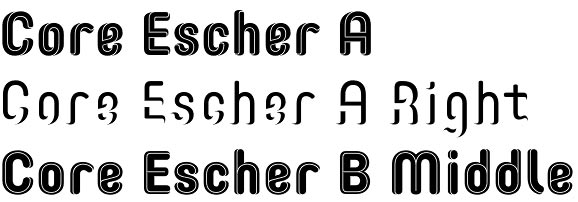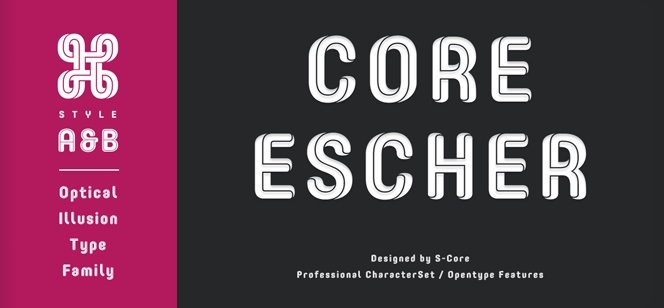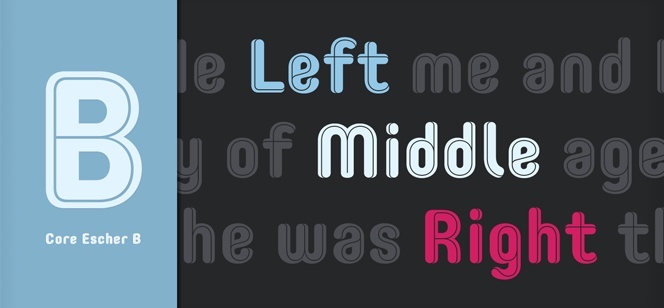
Core Escher font
Core Escher font by Hyun-Seung Lee and Dae-Hoon Hahm (S-Core type foundry) is an artistic type family inspired by the Dutch artist M. C. Escher’s impossible optical constructions. The resulting typeface features spectacular, pleasantly rounded 3D letterforms that seem to pop up out of the page. Due to its artistic nature Core Escher font family gives its best at large point sizes – for headlines, book titles, posters, logotypes, etc.
Core Escher font family comes in two styles: A and B. Core Escher A font is split in two variations: Core Escher A Left and Core Escher A Right whose clean and simple strokes construct together twisted optical impossible letters.
Core Escher B style presents a different form of an optical illusion: the lettering looks 3D by placing thin outlines onto bold letters. Its three variations: B Left, B Middle, and B Right offer a different “perspective” to the text.
Core Escher font family offers a variety of OpenType options such as proportional figures, tabular figures, numerators, denominators, superscript, scientific inferiors, subscript, fractions, ligatures and case features. It includes a rich language support: complete Basic Latin, Cyrillic, Central European, Turkish, Baltic character sets.